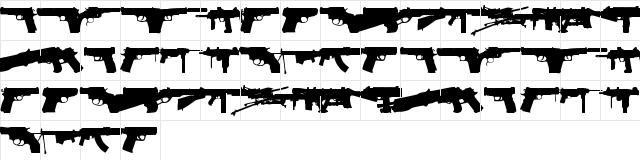
Fireguns tfb Regular
| Designer | kaiser zhar khan |
Design Context for Fireguns tfb Typeface
Fireguns tfb is a composed and adaptable typeface that performs quietly and consistently across a wide range of design contexts.